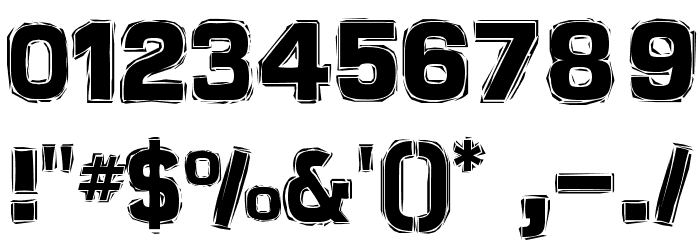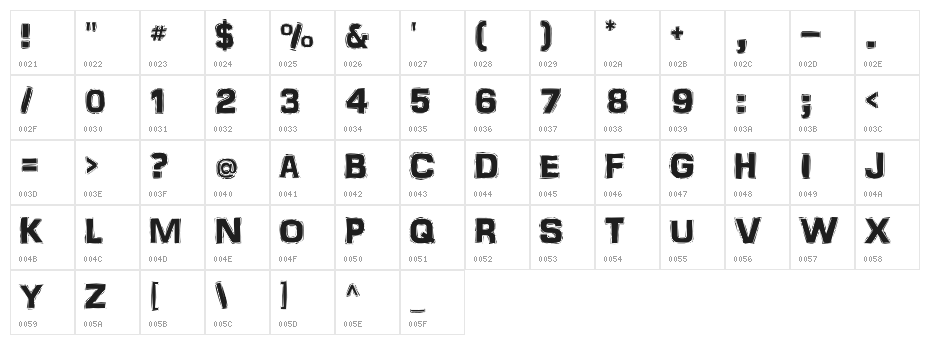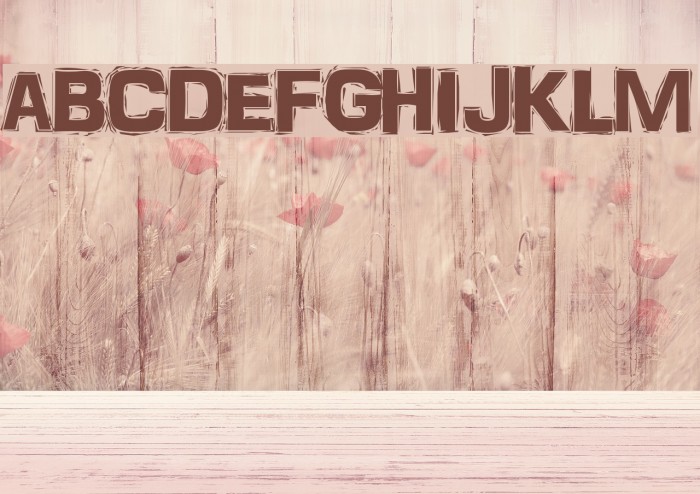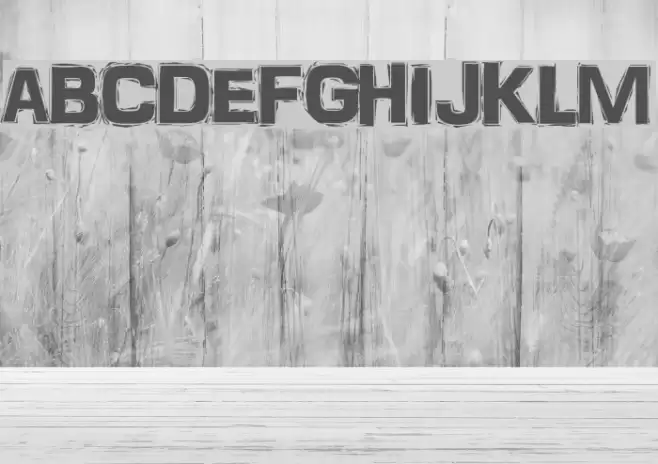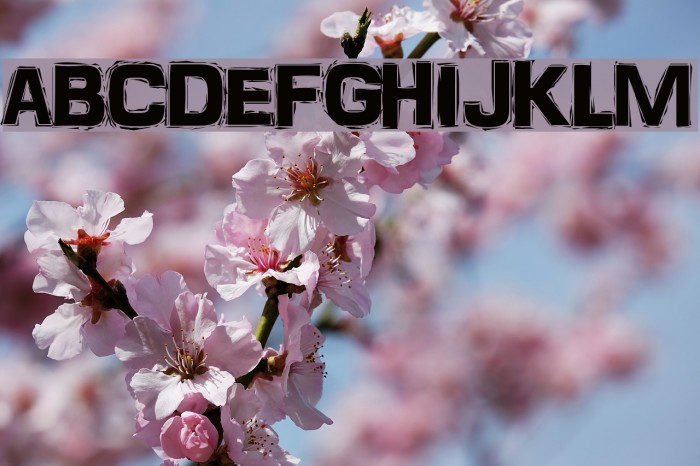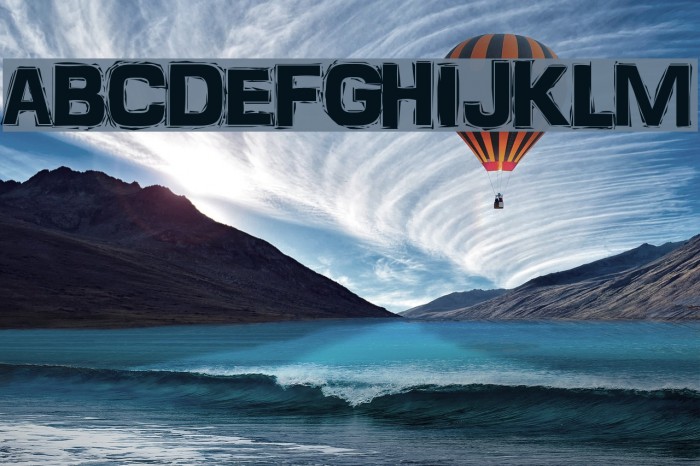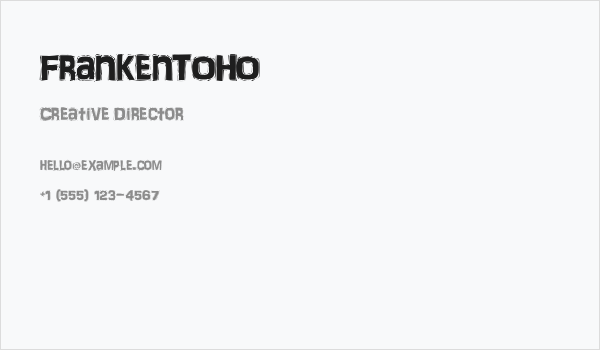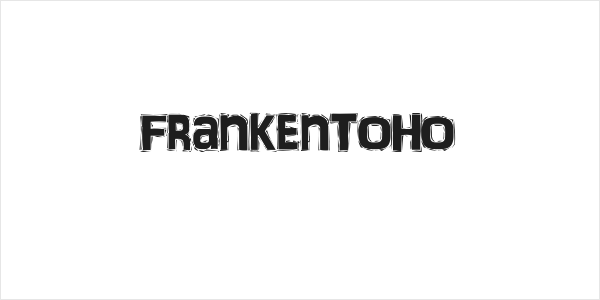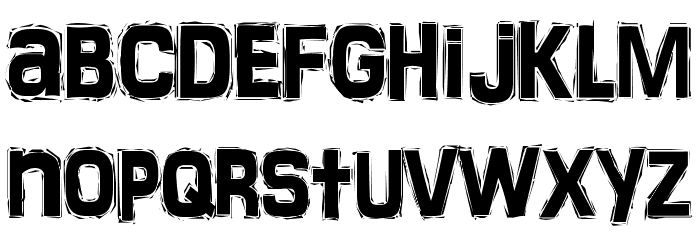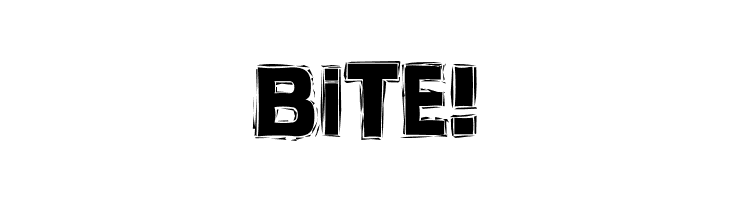
FrankenTOHO Font
FrankenTOHO Description
This font features a bold and edgy design with a distressed, grunge-like texture that gives it a rugged and dynamic appearance. The characters are uppercase and lowercase, with numerals and a variety of special symbols. The strokes are thick and uneven, creating a sense of movement and energy. This style is reminiscent of urban street art or graffiti, making it ideal for projects that require a bold statement. The font's unique texture adds depth and character, making it stand out in any design.
| Overall Style | Modern, Urban |
| Proposed Projects | Ideal for posters, album covers, streetwear branding, and edgy graphic designs. |